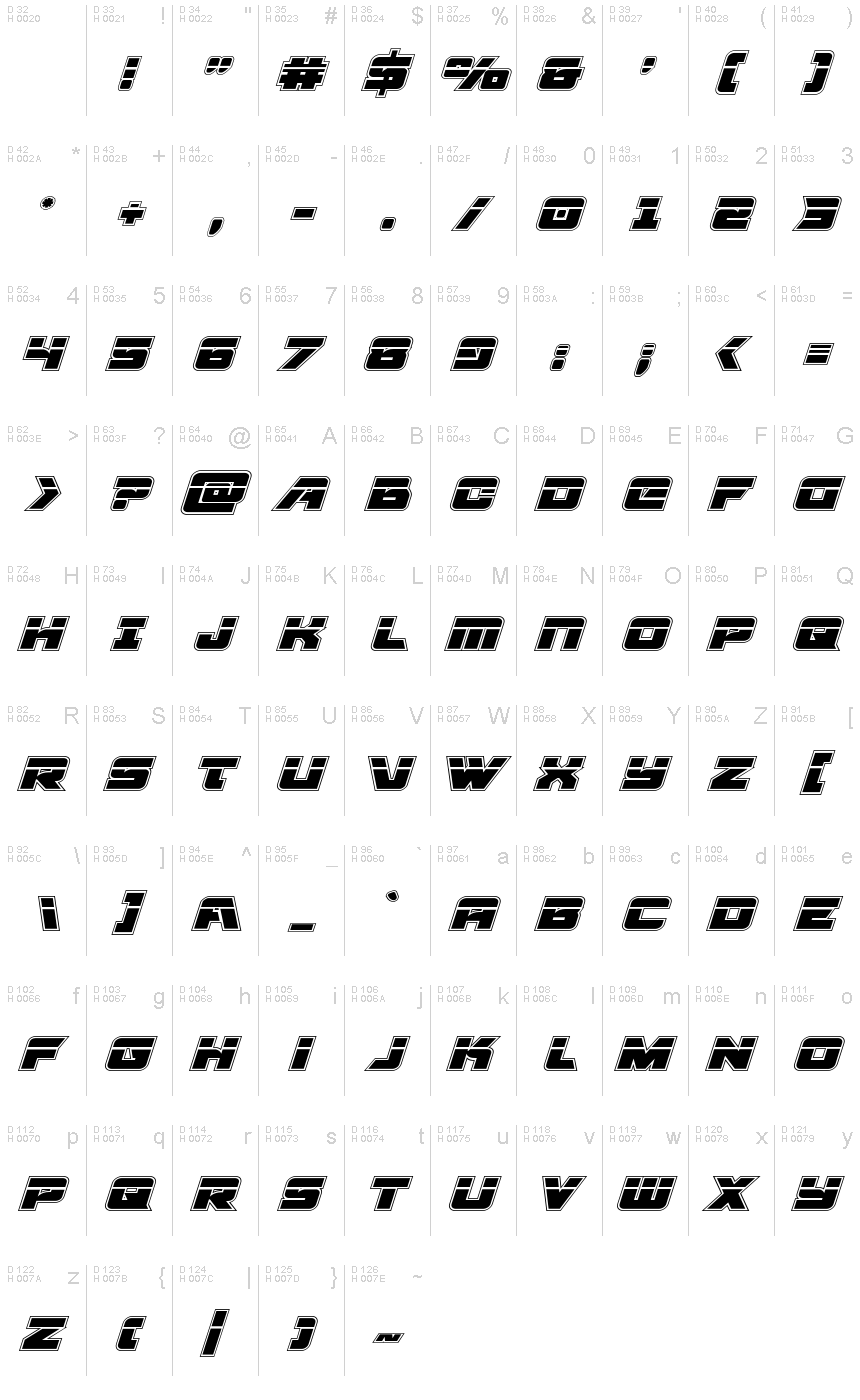
Aircruiser Academy Laser Italic, a striking display font crafted by Iconian Fonts, exudes a bold, futuristic essence. With its expanded, laser-sharp letterforms and a touch of italicized elegance, this font radiates a sense of technological sophistication and cutting-edge style. Its distinctive features captivate the eye, evoking a mood of dynamic energy and forward-thinking design.
The Aircruiser Academy Laser Italic font's versatility shines through, making it a compelling choice for a variety of design applications. Its bold, attention-grabbing presence lends itself well to eye-catching headings, impactful logos, and dynamic branding initiatives. Whether you're crafting futuristic user interfaces, designing captivating packaging, or envisioning visually striking digital experiences, this font's unique aesthetic can elevate your creative projects to new heights.
Präsentation und Schriftprobe von Aircruiser Academy Laser Ital